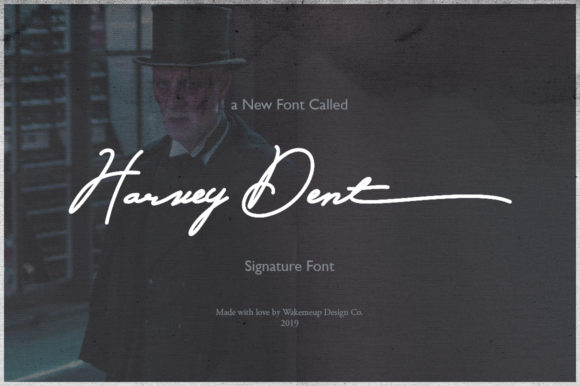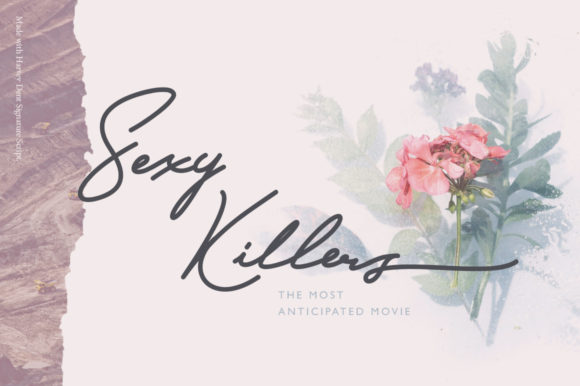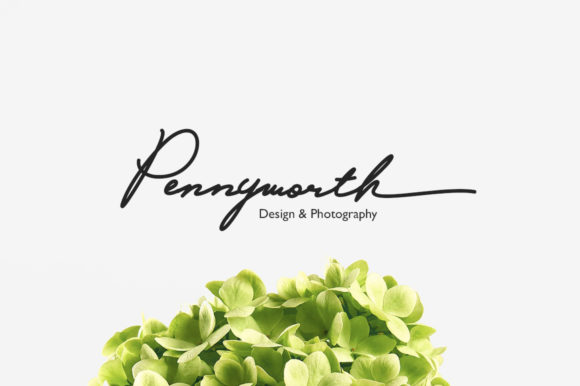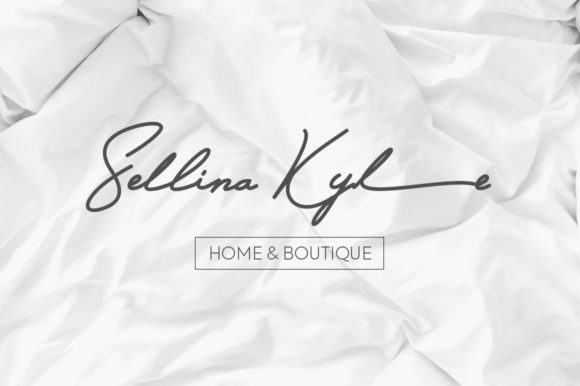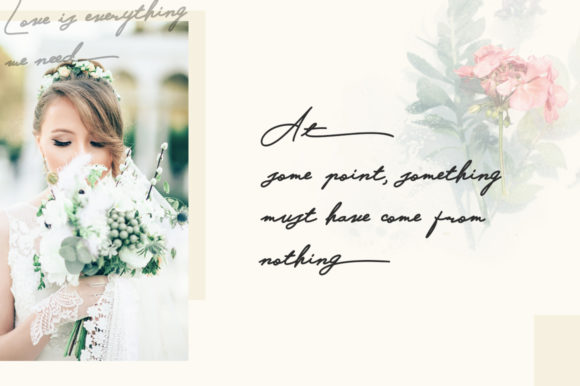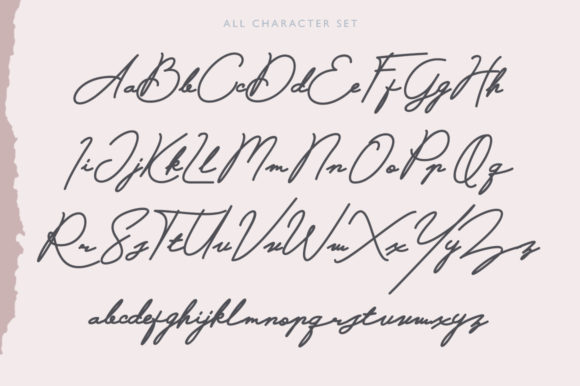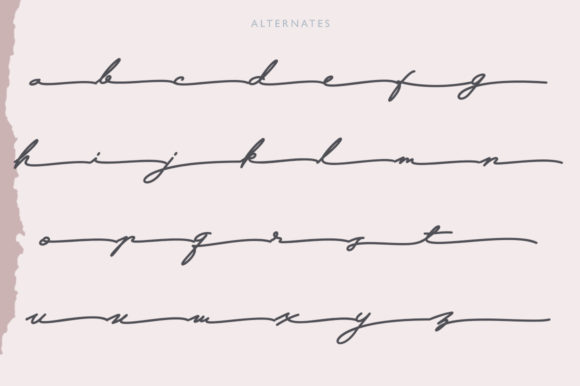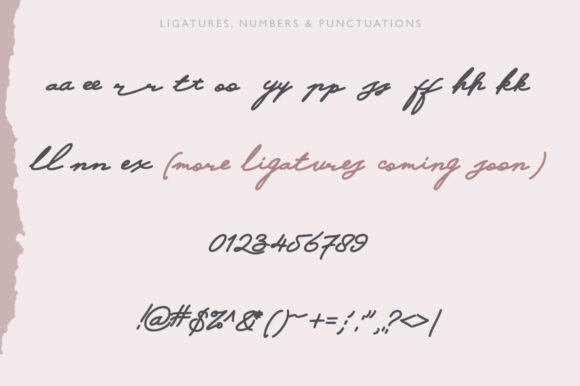
Harvey Dent Font
About Harvey Dent Font
Harvey Dent is an exquisite handwritten font, elegant and distinct. Incredibly versatile due to its flowing and relaxed style, this font is suitable to a wide variety of designs.